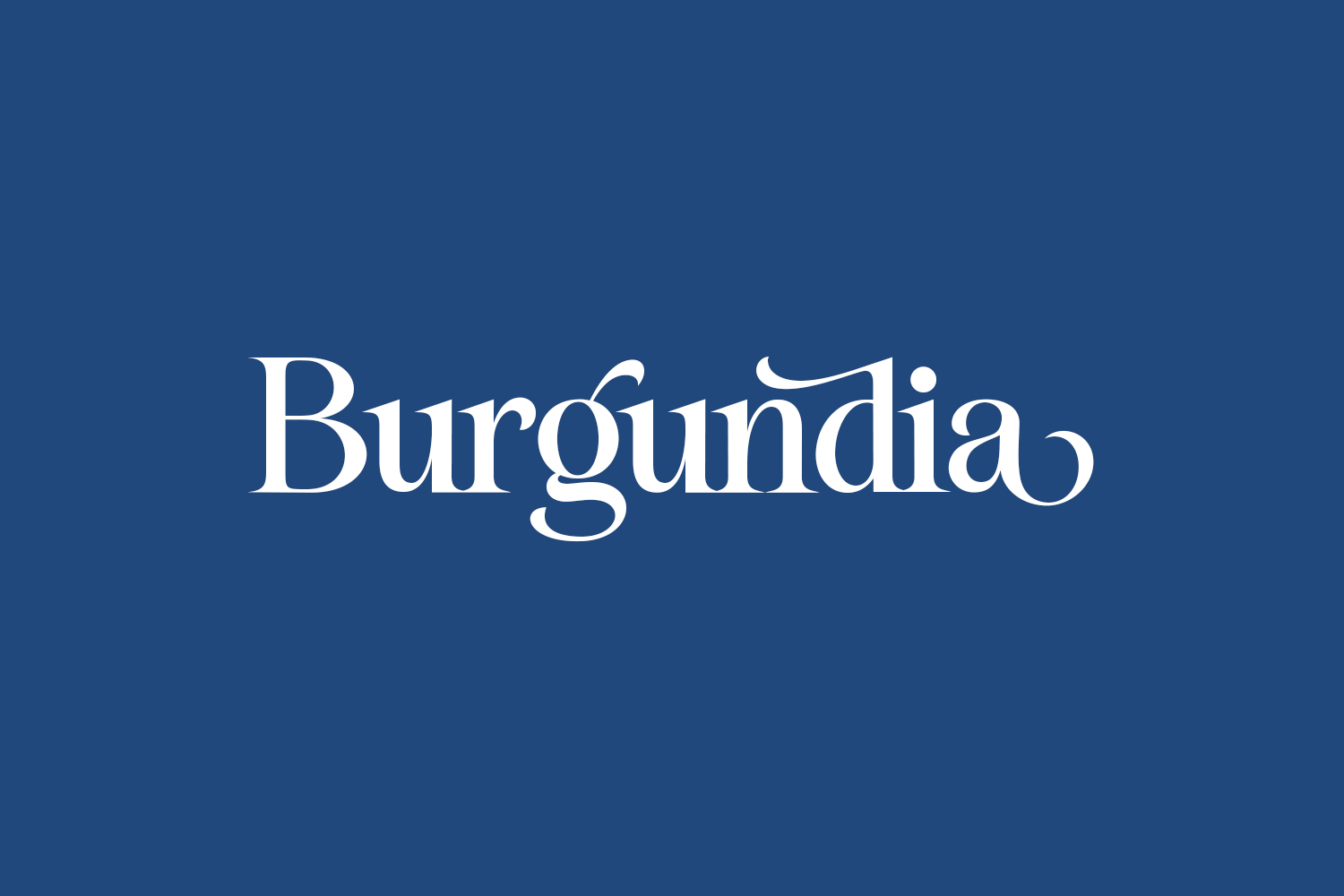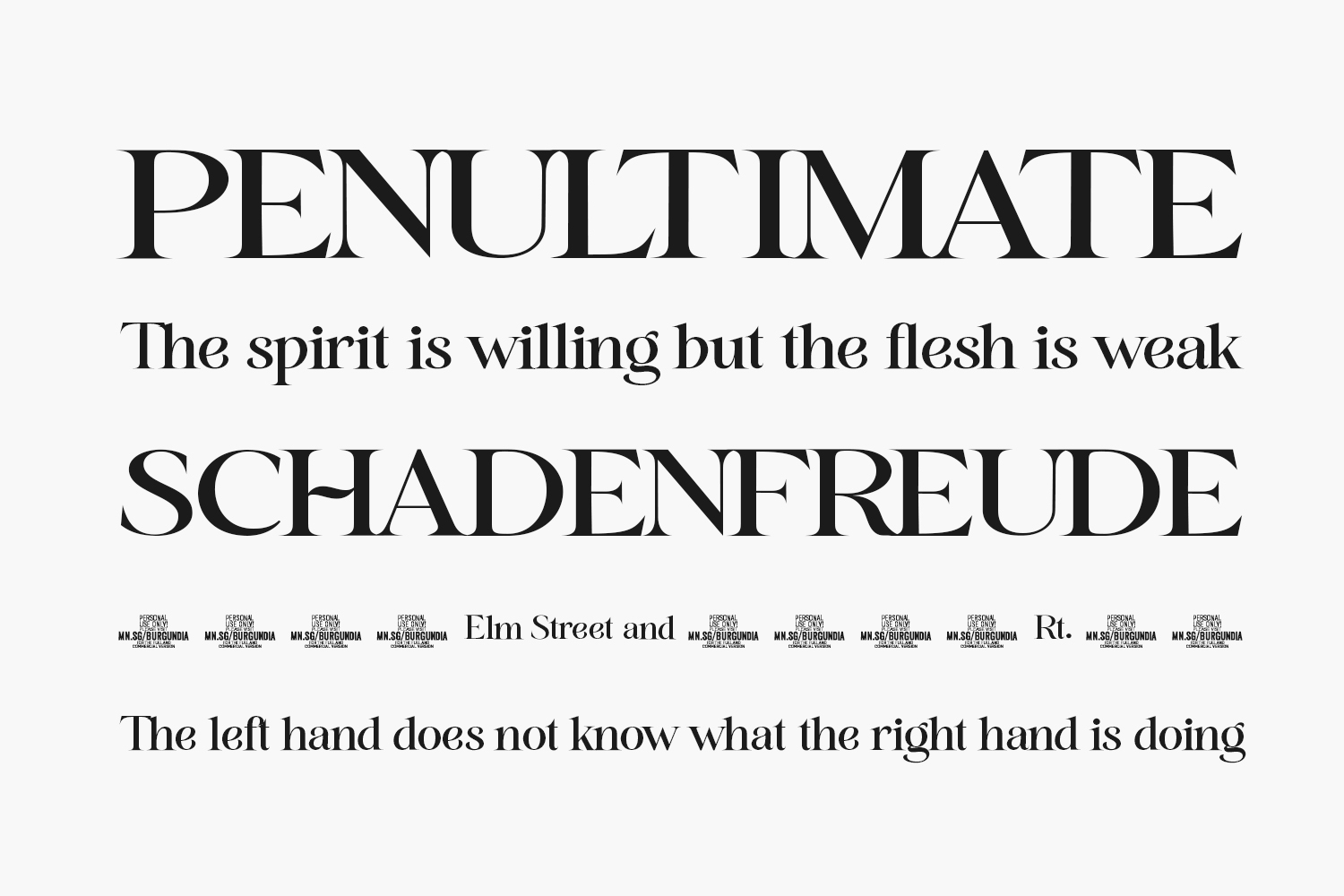
Burgundia Free Font – Refined Serif Typeface for Sophisticated Design
Burgundia is a stylish and elegant serif display font designed by Måns Grebäck to bring timeless sophistication to your creative projects. With its refined stroke contrast, graceful terminals, and classic structure, this free font works perfectly for upscale branding, editorial headers, wine labels, invitations, and packaging design. Available in OTF format — ideal for designers seeking a modern serif font with heritage charm.
Why Choose Burgundia?
- Elegant Style: Combines thin and thick strokes with smooth terminals for a balanced, luxurious appearance.
- Ideal for Luxury Branding: Perfect for high-end fashion, wine bottles, or boutique brand identities needing a refined tone.
Where to Use Burgundia?
Burgundia shines across a variety of design applications:
- Logos & Branding: Adds sophistication to brand kits for lifestyle brands, wineries, or artisanal studios.
- Wine & Product Labels: Perfect for wine bottles, perfume packaging, or premium food products needing an upscale look.
- Editorial Headers: Stands out in magazine covers, book titles, and advertising campaigns with a vintage appeal.
- Packaging Design: Brings elegance to product tags, gift boxes, or handmade goods with a refined serif style.
- Wedding Invitations: Enhances formal stationery sets, RSVP cards, and bridal name typography with a classic touch.
Design Tips with Burgundia
Designed by Måns Grebäck